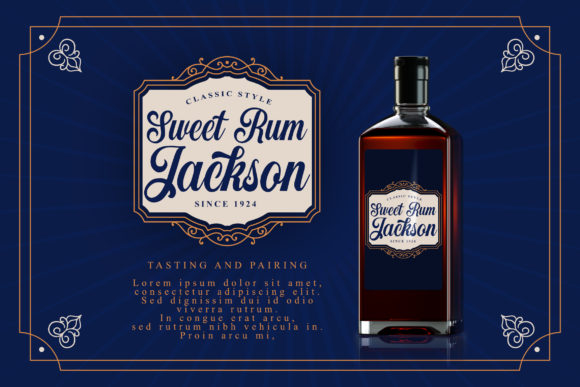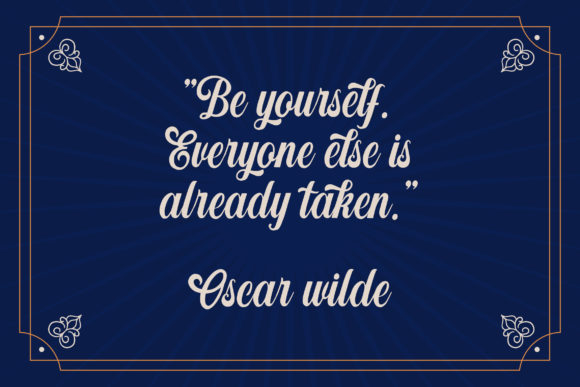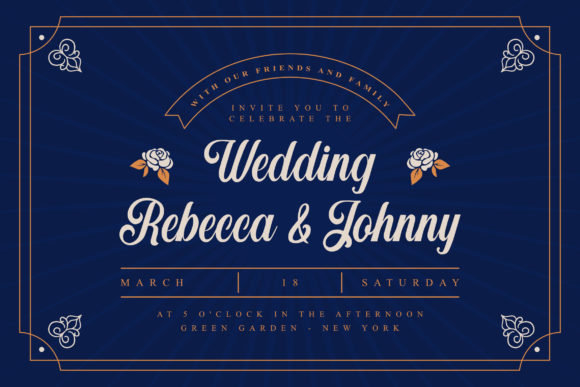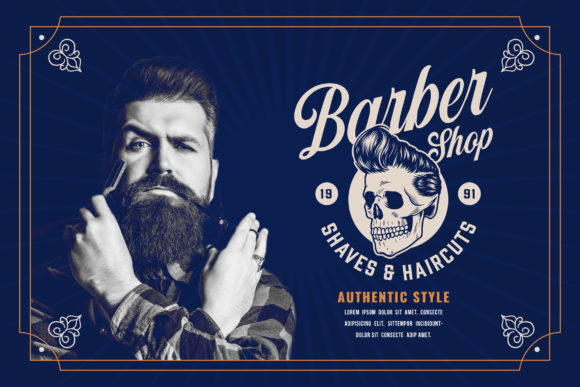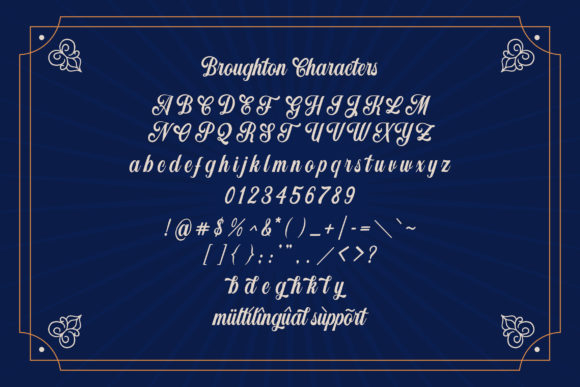
About Broughton Font
Broughton is an exquisite handwritten font, masterfully designed to become a true favorite. It maintains its classy calligraphic influences while feeling contemporary and fresh. Fall in love with it and bring your projects to the highest levels!